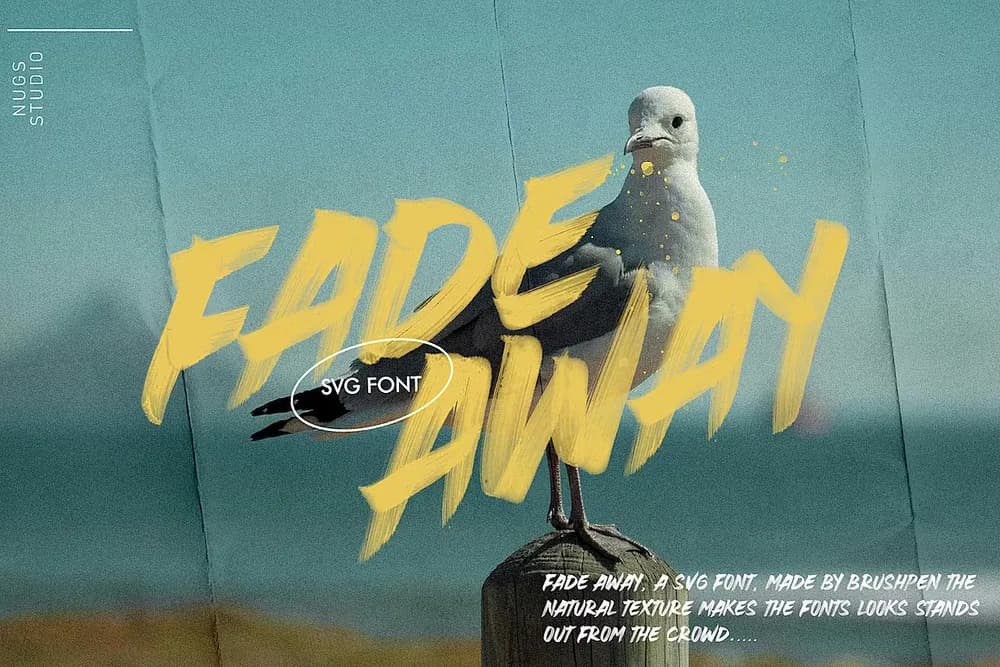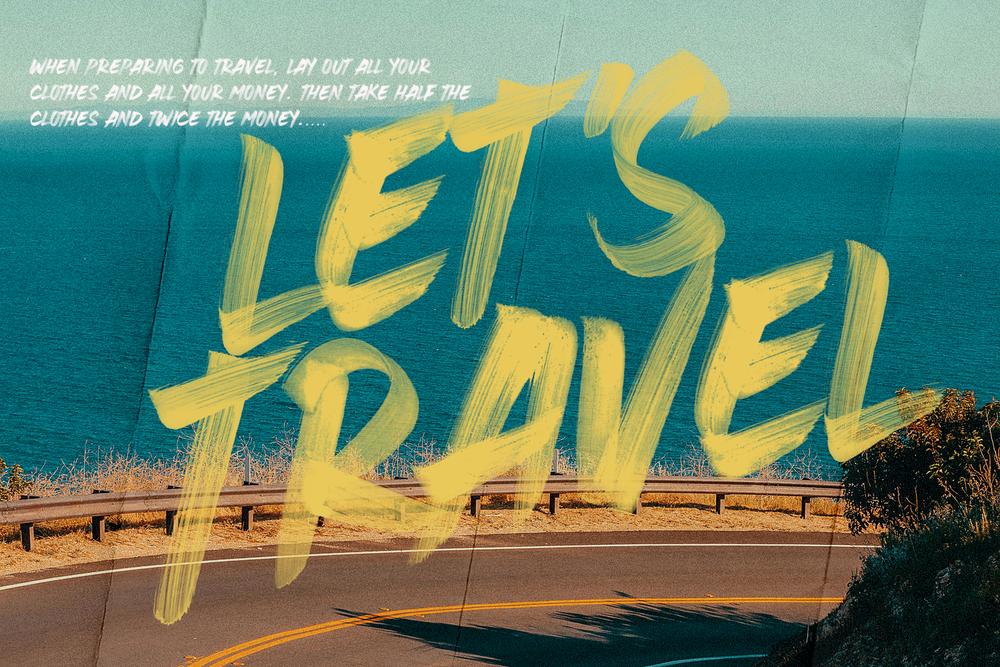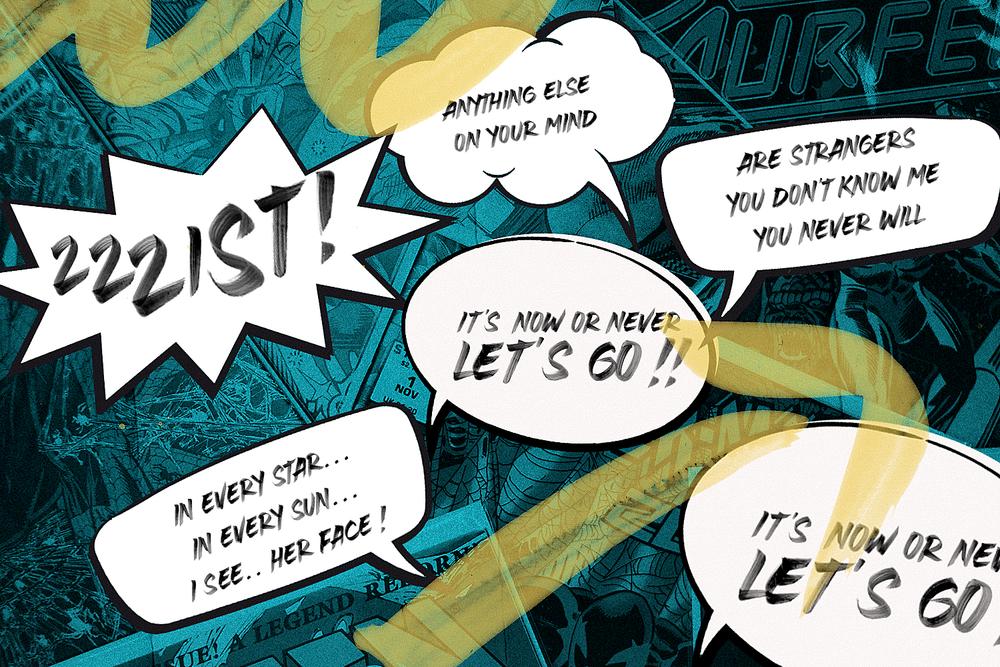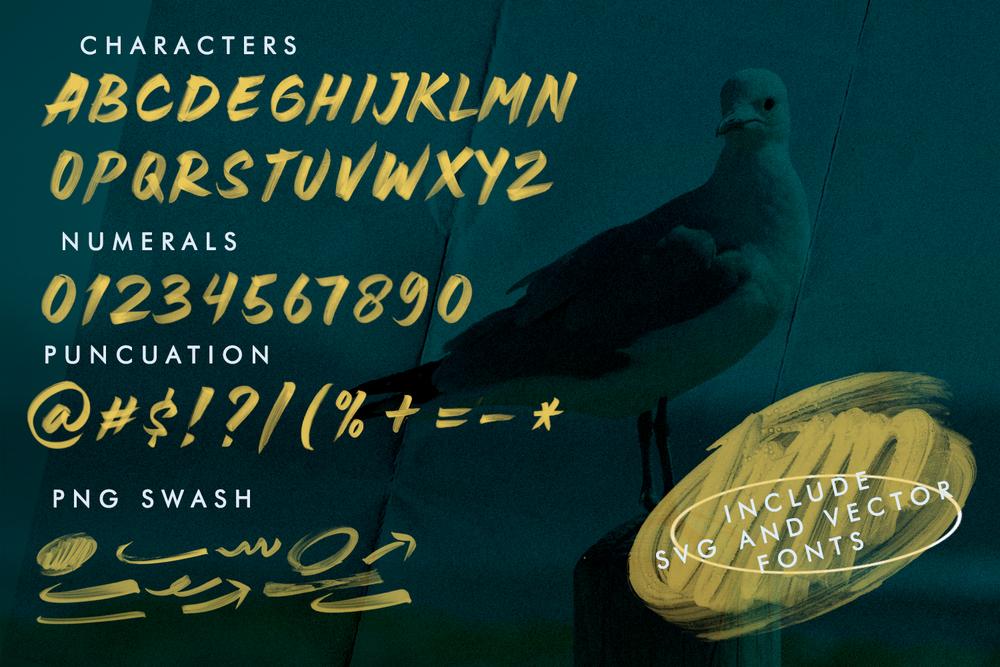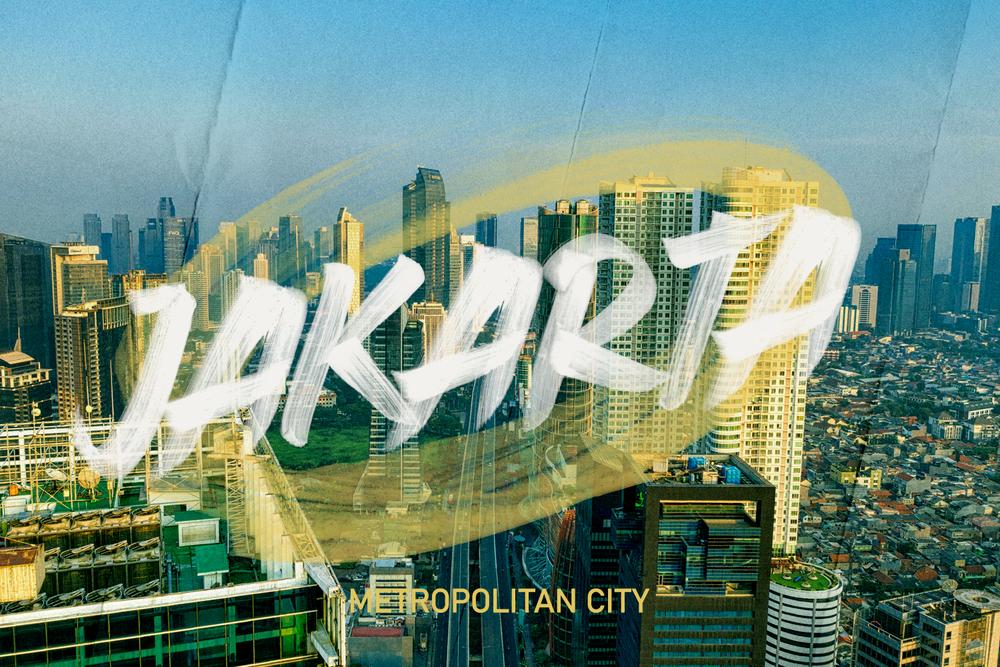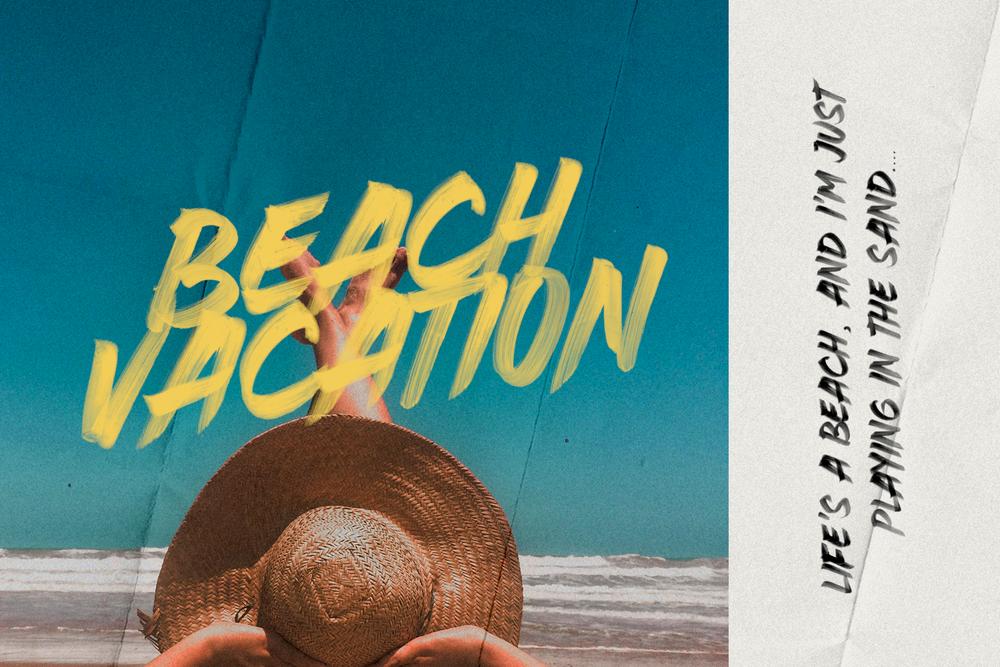
FADE AWAY, a SVG Font, made by Brushpen The natural texture makes the fonts looks stands out from the crowd..... Included Files : OTF/TTF/SVG/WOFF PNG Transparent Extra Multi languages Requirements: You need to be using Photoshop CC 2017.1.1 (or later) or Illustrator CC 2018 (or later) for the Opentype SVG fonts. Don’t have the latest Adobe programs? You can still use the vector versions of the font, which are compatible with practically any program that accepts custom fonts.